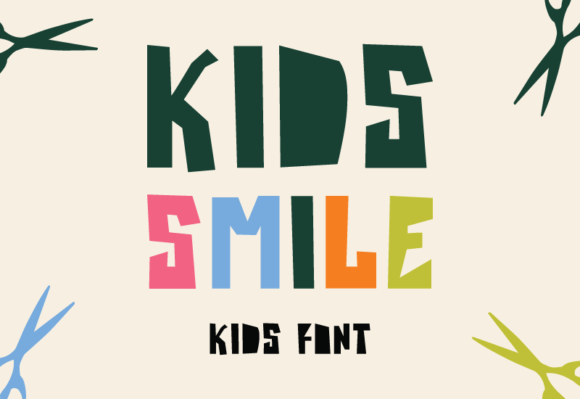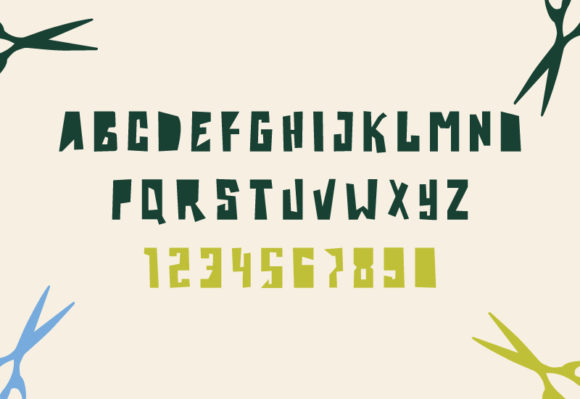
Introduction to Kids Smile Font
Discover the delightful appeal of Kids Smile Font, a typeface brimming with youthful whimsy.
Each letter of this distinctive font breathes life into every cut-out of craft projects, singing the sweet song of childhood merriment Drawing inspiration from the innocent scrawls and enchanting doodles of children, Kids Smile Font paints an array of vibrant and joyful characters.
Key Features of Kids Smile Font
Why Choose Kids Smile Font?